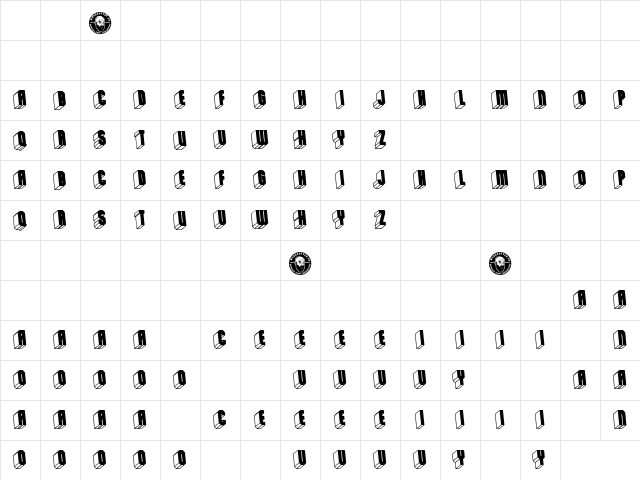
New Dimension Regular
| Designer | Woodcutter Manero |
Design Context for New Dimension Typeface
New Dimension is a composed and adaptable typeface that performs quietly and consistently across a wide range of design contexts.